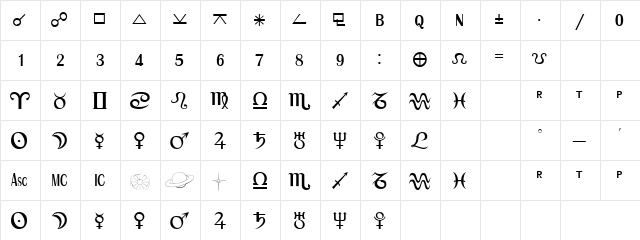
Planet Mandrake Regular
Design Context for Planet Mandrake Typeface
Planet Mandrake is a composed and adaptable typeface that performs quietly and consistently across a wide range of design contexts.